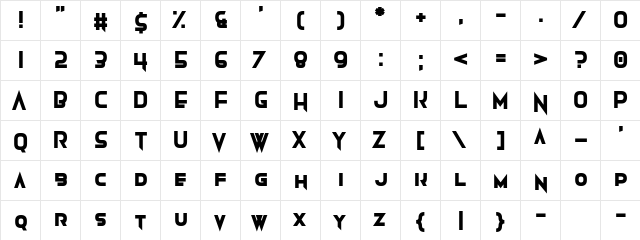
Armwarmer Regular
Design Context for Armwarmer Typeface
Armwarmer is a composed and adaptable typeface that performs quietly and consistently across a wide range of design contexts.